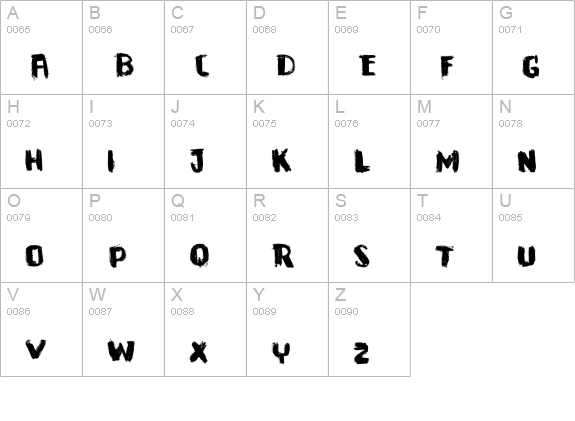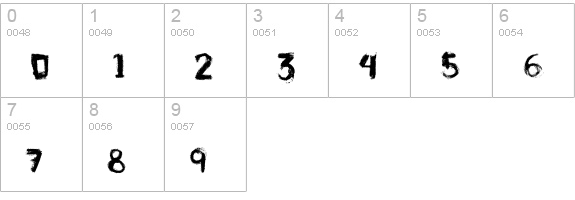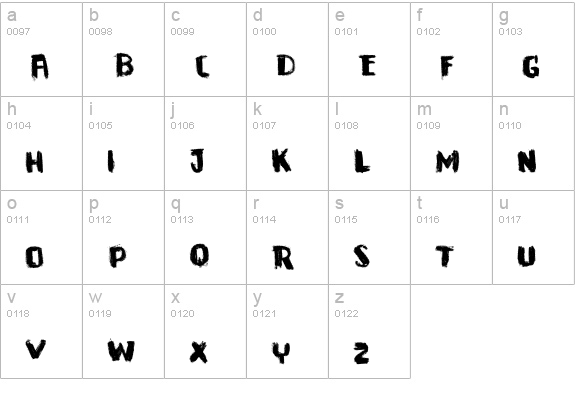
VTKS DOWNTOWN Font Details
VTKS DOWNTOWN font is a captivating and edgy typeface that is sure to make a bold statement in any design project. With its unique and urban-inspired aesthetic, this font exudes a sense of modernity and urban sophistication. Featuring a mix of sharp angles and fluid curves, VTKS DOWNTOWN font is perfect for creating eye-catching headlines, logos, posters, and more. Its bold and distinctive letterforms will instantly grab the attention of viewers, making it ideal for projects that require a strong visual impact. One of the best things about VTKS DOWNTOWN font is that it is available as a free download at FontsMarket.com. This means that you can easily access and utilize this incredible font without having to spend a dime. Whether you're a professional designer or simply a creative individual looking to elevate your projects, VTKS DOWNTOWN font offers you the opportunity to do so without any financial constraints. So why wait? Visit FontsMarket.com today and unleash the power of VTKS DOWNTOWN font in your designs. With its striking aesthetic and the fact that it is freely available to download, this font is a must-have for any designer looking to make a lasting impression.